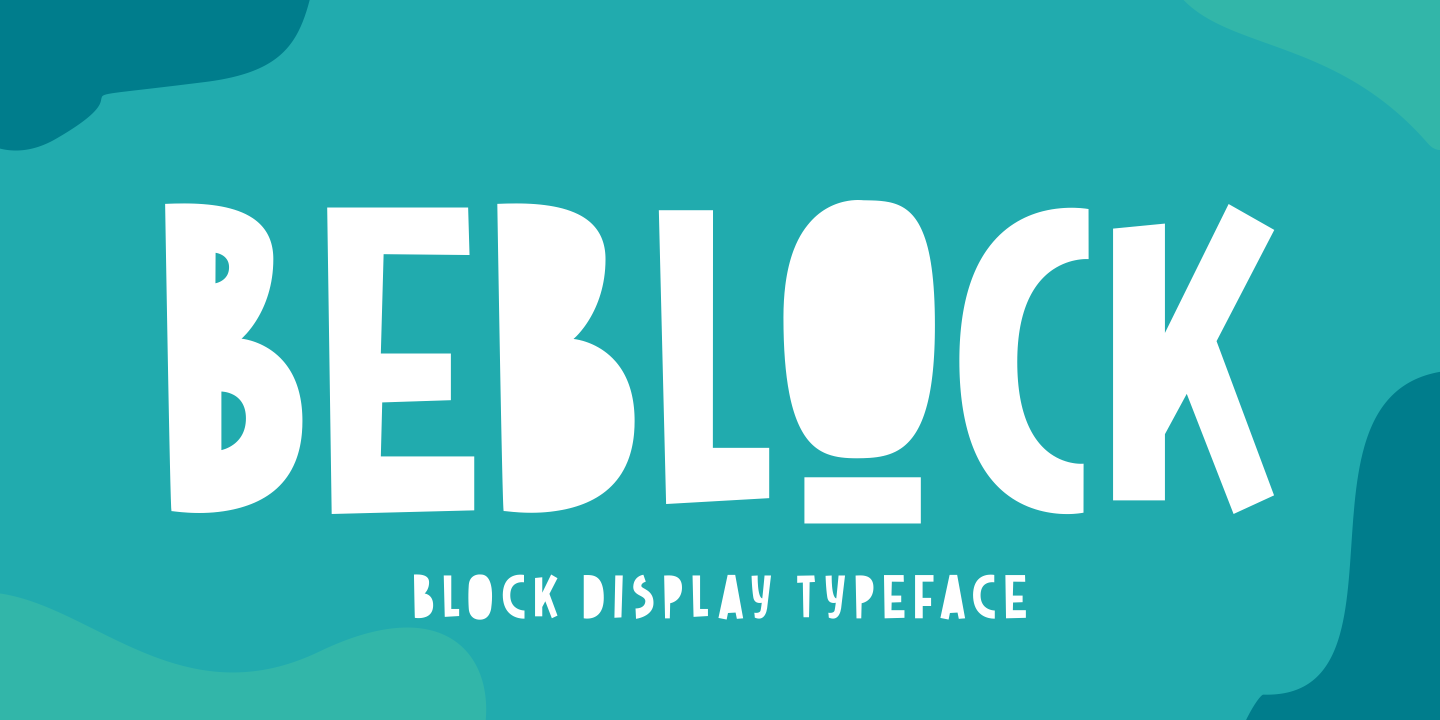
Beblock Font is a commanding and intensely powerful typeface, perfectly suited for projects that demand a bold visual statement and an unmistakable presence. Imagine it dominating the headlines of an impactful advertising campaign, adding a robust and modern edge to sports apparel branding, or making an unmissable declaration on posters for major events and festivals. It's also an excellent choice for crafting striking logos that convey strength and stability, designing compelling social media graphics that demand attention, or bringing a powerful, assertive vibe to digital content and interfaces where visual impact is paramount. If you're looking to convey confidence, dynamism, and an undeniable sense of solid authority, Beblock Font is an outstanding selection.
What makes Beblock Font so exciting? It’s its unparalleled ability to combine a strong, block-like construction with distinctive, often geometric letterforms, creating an immediate visual impact that resonates with contemporary design sensibilities. This font is specifically designed for display purposes, meaning its unique character shines in larger sizes, commanding attention while maintaining clarity. Despite its powerful visual weight, Beblock Font is crafted to ensure readability for its intended use, delivering your message with both precision and significant force. Designers will appreciate its versatility in creating designs that are both visually assertive and deeply memorable, making it a go-to choice for projects that need to stand out boldly and reflect a modern, strong aesthetic.
The Beblock Font family is typically designed to maximize its formidable and distinctive aesthetic. While it might primarily feature a singular, intensely bold or extra-bold weight that perfectly embodies its unique style, you could find variations that enhance its utility, such as slightly condensed versions for impactful headlines in limited spaces, or stylistic alternatives that offer more creative typographic possibilities to deepen its powerful appeal. These variations ensure that Beblock Font maintains its cohesive and high-impact visual identity across different design applications, from monumental titles to powerful short statements. Discover the formidable power of Beblock Font Free Download and infuse your designs with an unforgettable sense of modern dynamism.